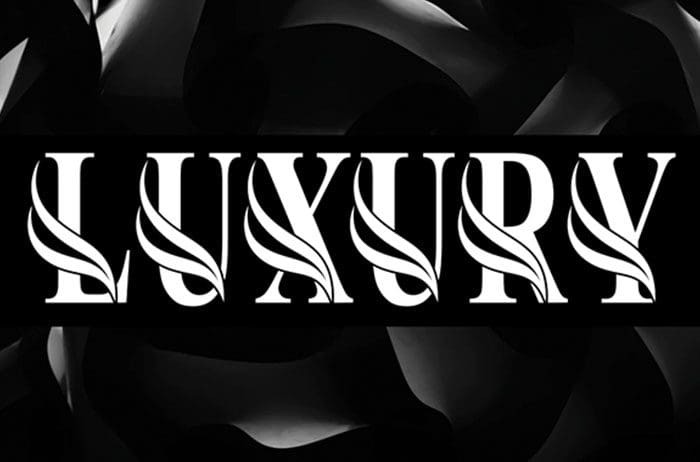
Enigma Script Font
Free Luxury serif font. The latest style letters are perfect for wall displays, wedding invitations, social media post logos, advertisements, product packaging, product designs, labels, photography, stationery, and any project that requires taste handwriting. Designed this font by Andika Studio. You can also search more freeĀ Serif Fonts.